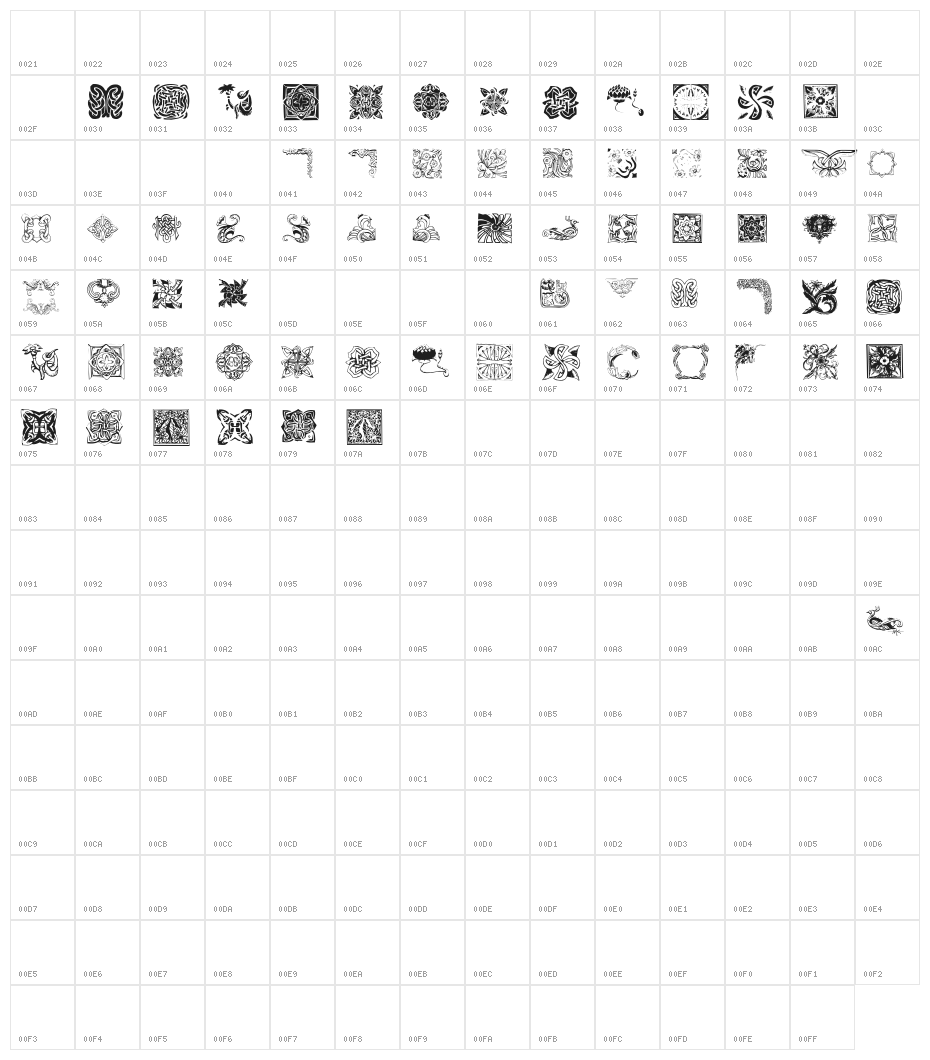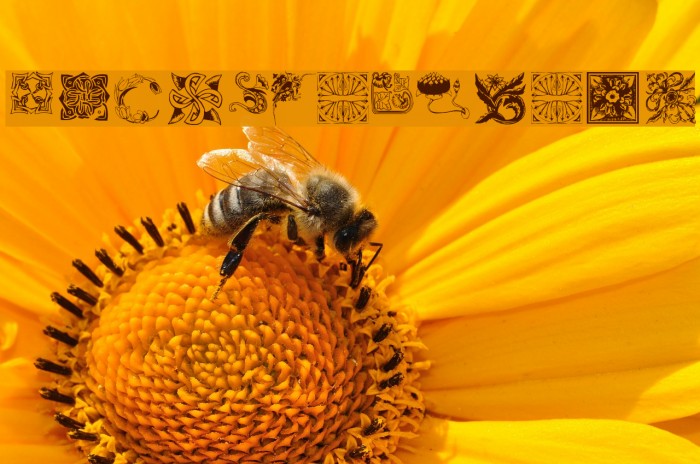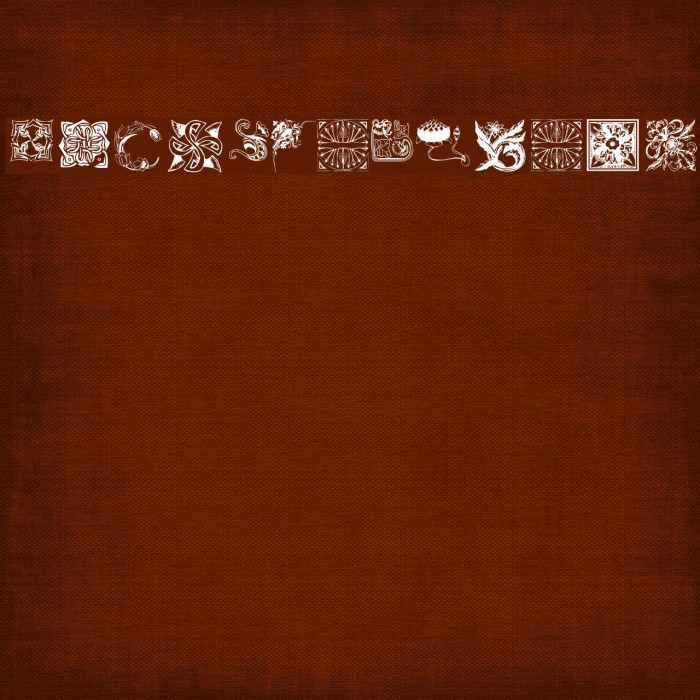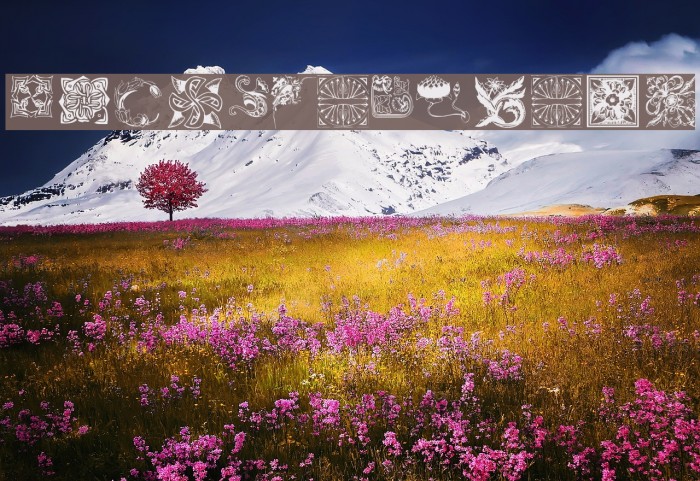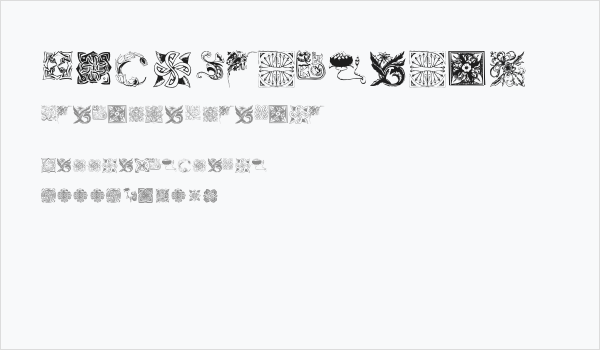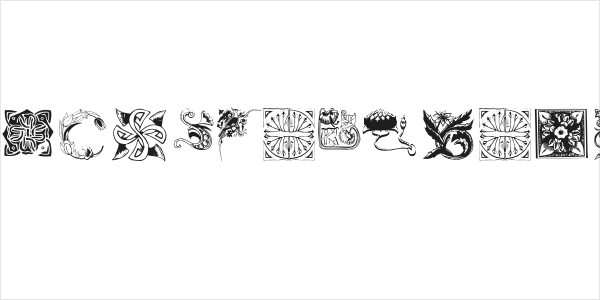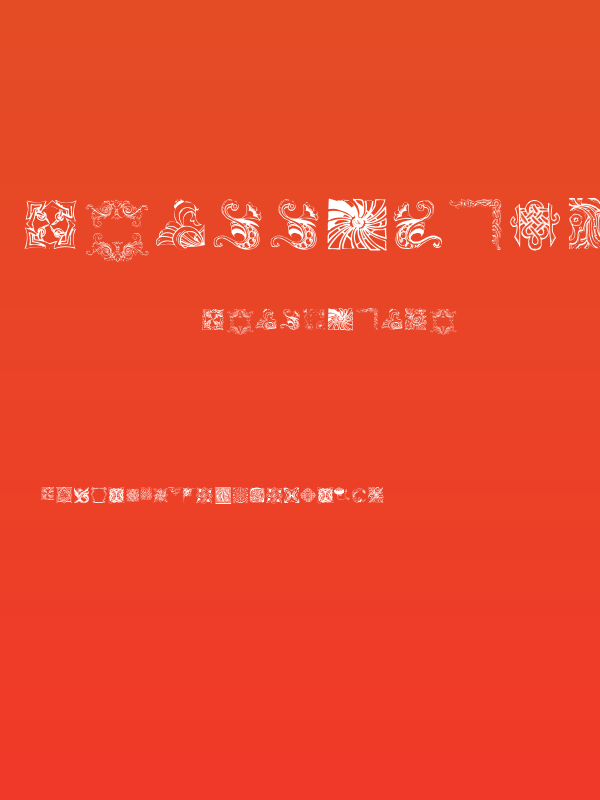
TypoOrnaments Font
TypoOrnaments Description
This collection features a series of intricate and decorative ornaments that are highly detailed and artistic. Each character is a unique design, incorporating elements such as floral patterns, geometric shapes, and mythical creatures. The designs are reminiscent of vintage or classical motifs, often seen in historical manuscripts or architectural embellishments. The level of detail in each ornament suggests a hand-crafted quality, making them suitable for projects that require a touch of elegance and sophistication. These ornaments can be used to create borders, embellishments, or standalone decorative elements in various design projects.
| Use Case | Decorative elements, Borders, Embellishments |
| Proposed Projects | Ideal for use in invitations, certificates, book covers, or any project requiring decorative embellishments. |